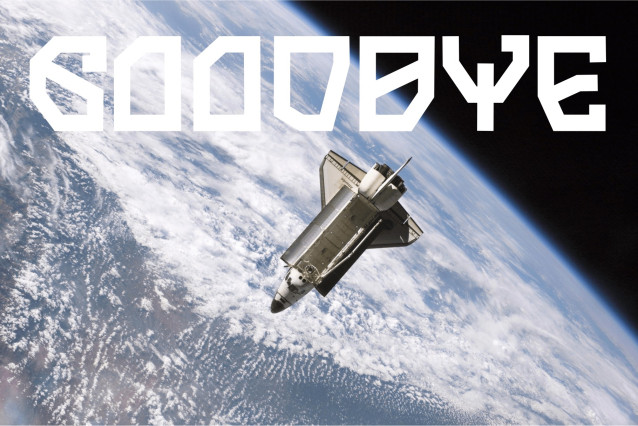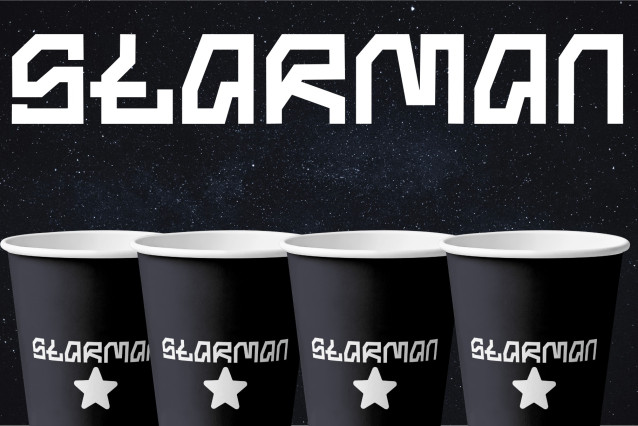
Zyberon Font
Zyberon Font is a bold and modern tech-inspired display font built for the digital age. Featuring sharp angles, sleek geometry, and a cyberpunk aesthetic, it’s perfect for projects needing a high-tech, futuristic, or sci-fi edge. Ideal for esports branding, gaming titles, tech logos, UI interfaces, and digital artwork.